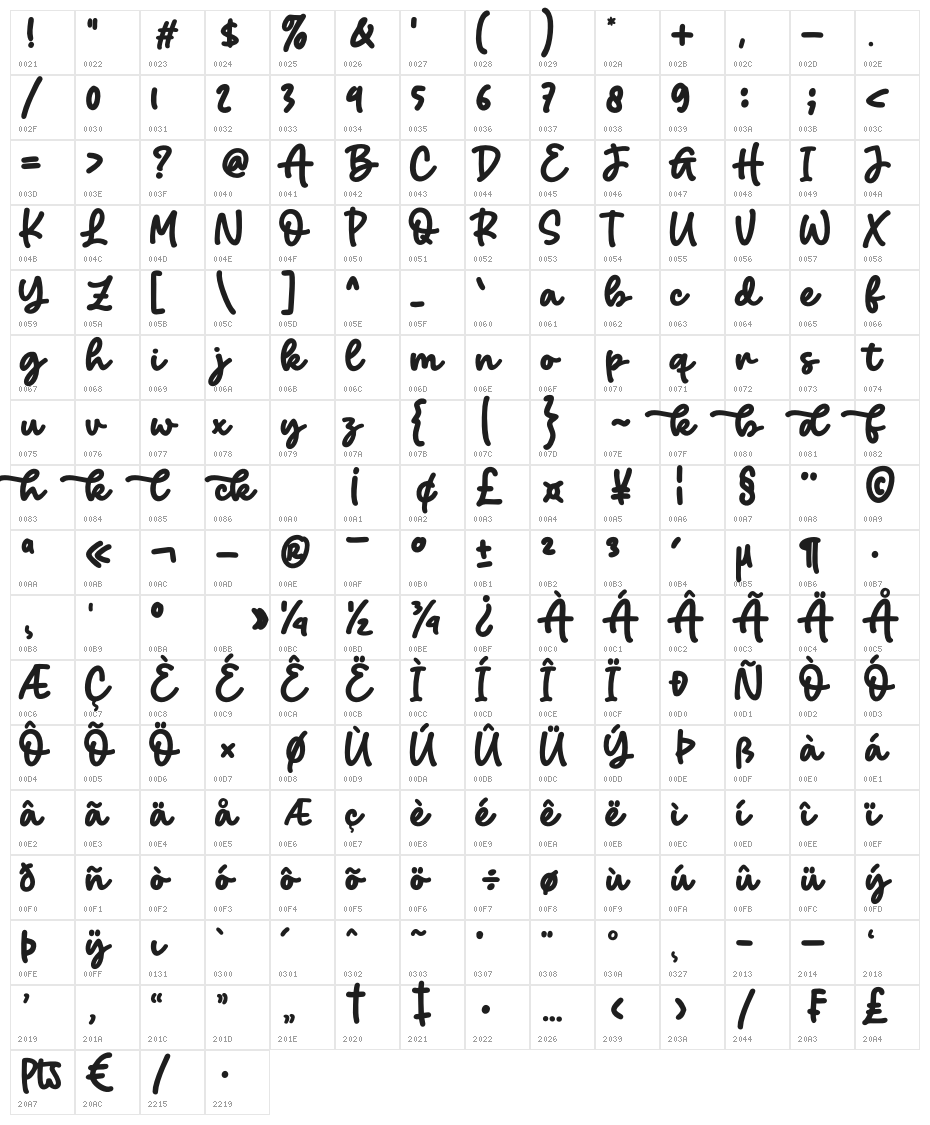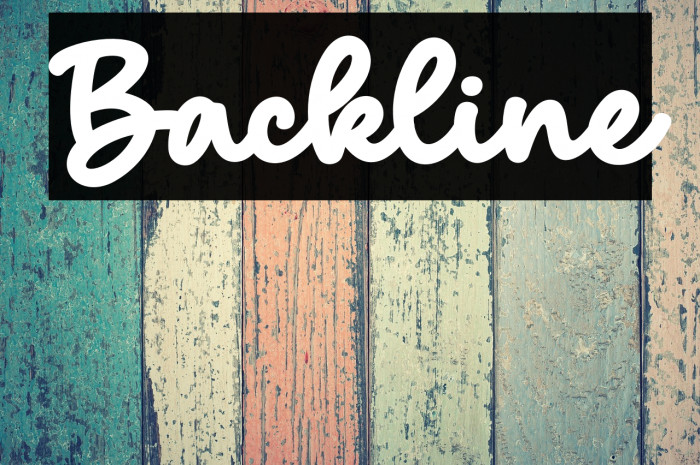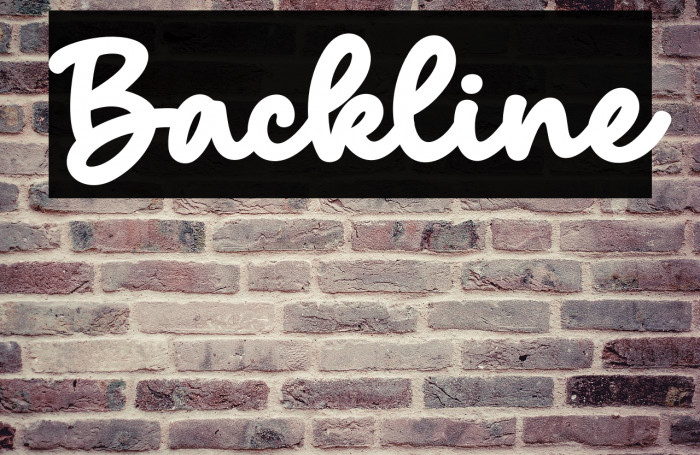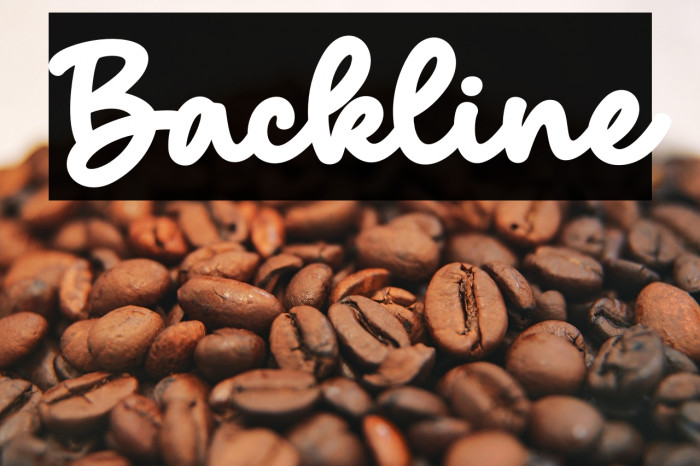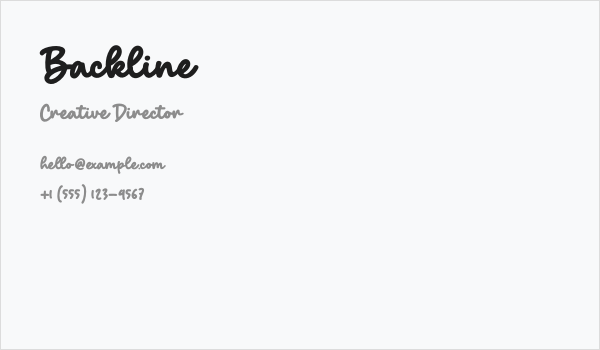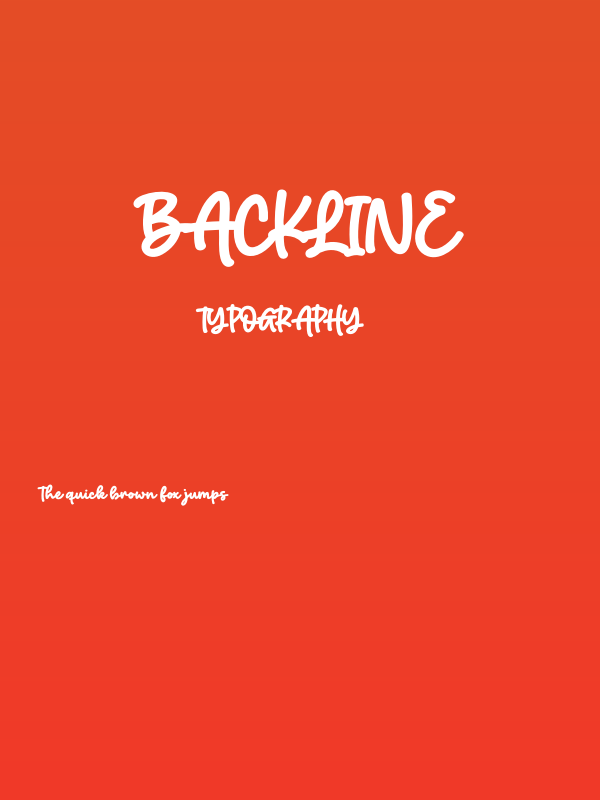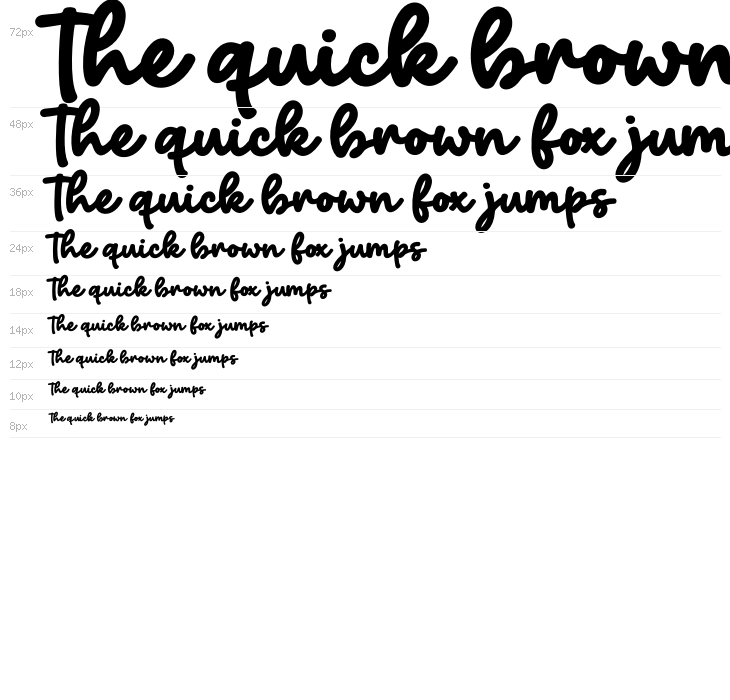
Backline Font
Backline Description
This font features a bold and expressive handwritten style, characterized by its fluid and continuous strokes. The uppercase letters are dynamic and slightly slanted, giving a sense of movement and energy. The lowercase letters maintain a consistent flow, enhancing readability while retaining a casual, personal touch. Numbers and special characters are crafted with the same boldness, ensuring uniformity across all elements. The overall design is playful yet legible, making it suitable for a variety of creative applications.
| Proposed Projects | Ideal for greeting cards, posters, social media graphics, and branding projects that require a personal and energetic touch. |